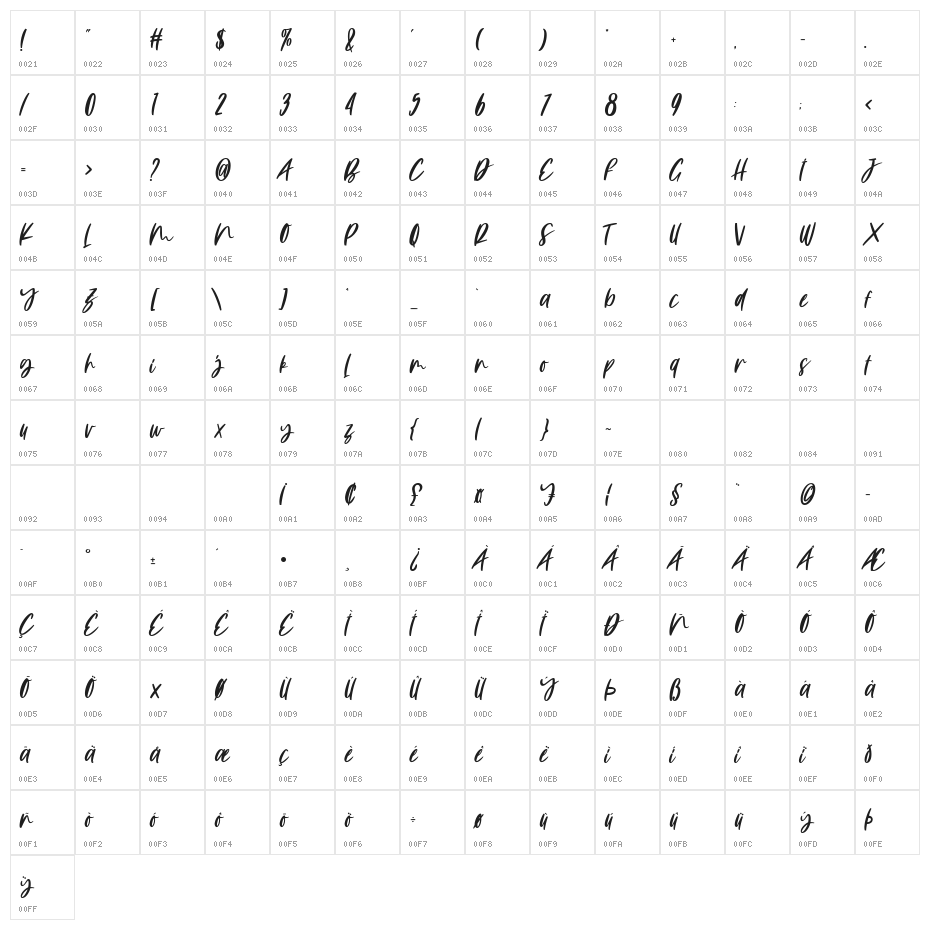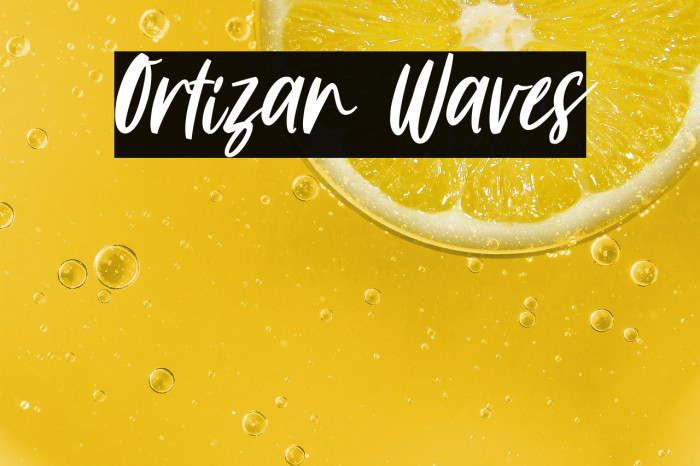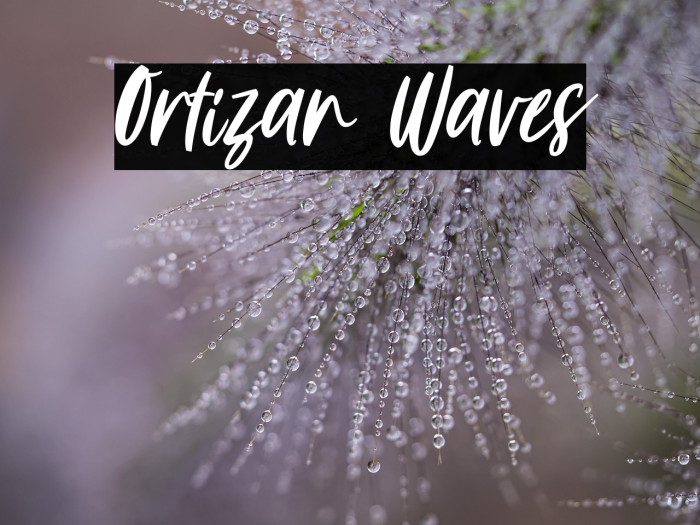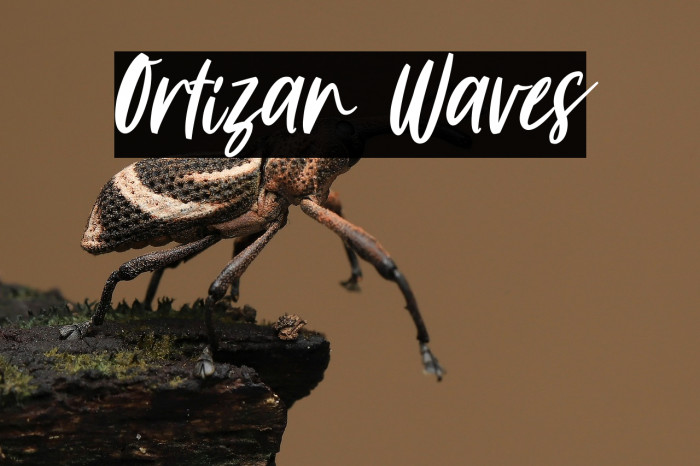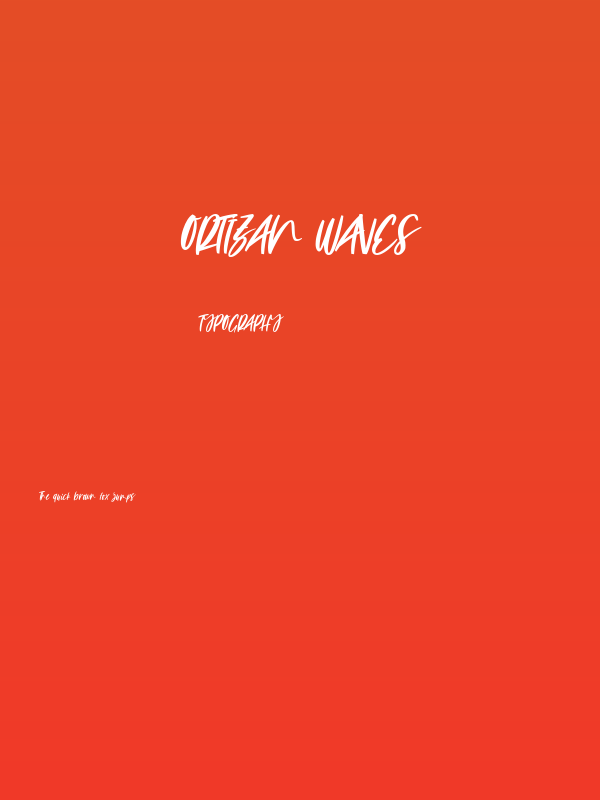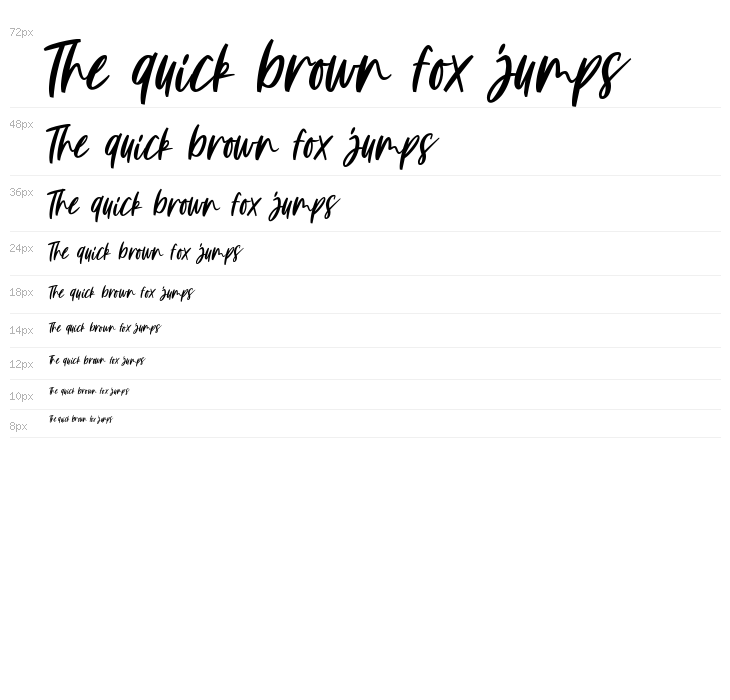
Ortizan Waves Font
Ortizan Waves Description
This font features a dynamic and expressive handwritten style, characterized by its fluid and sweeping strokes. The letters are bold and slightly slanted, giving a sense of movement and energy. The uppercase and lowercase letters maintain a consistent style, with the uppercase being more pronounced. The numerals and special characters are crafted with the same attention to detail, ensuring a cohesive look across all characters. This font's playful yet sophisticated appearance makes it suitable for a variety of creative projects.
| Proposed Projects | Ideal for branding, invitations, social media graphics, and creative posters. |